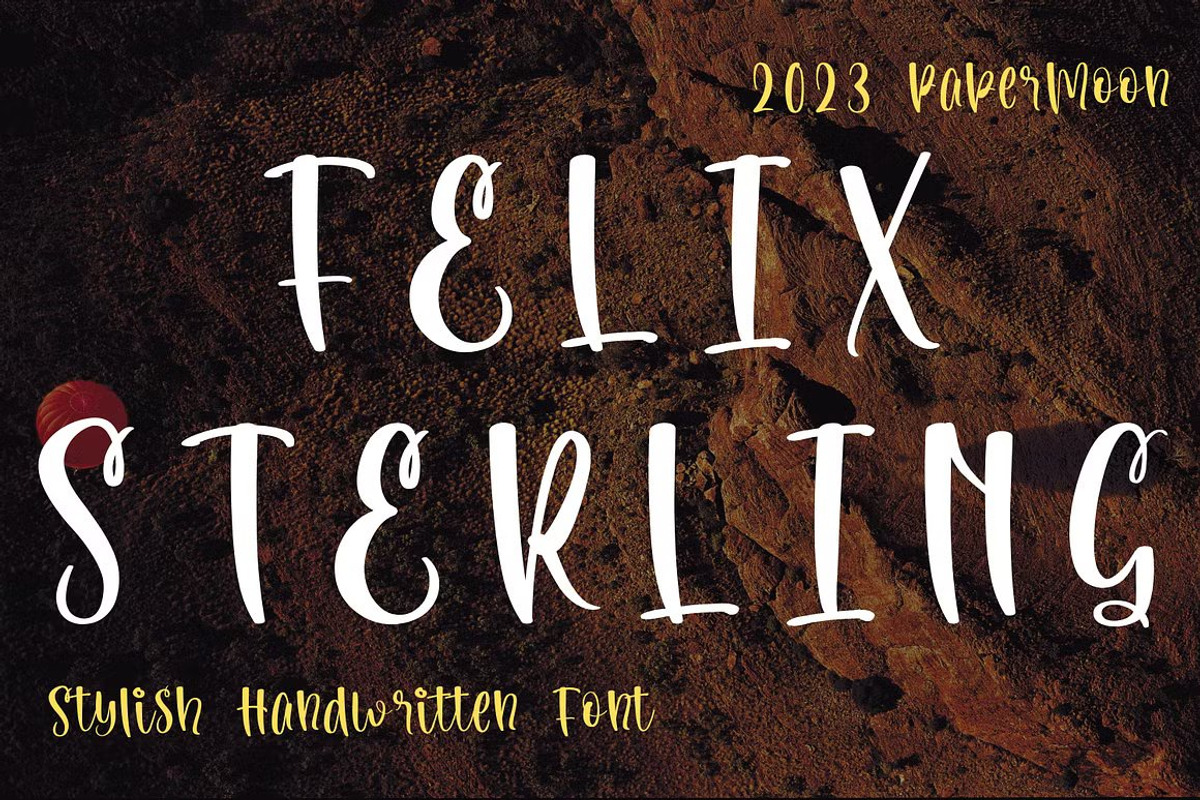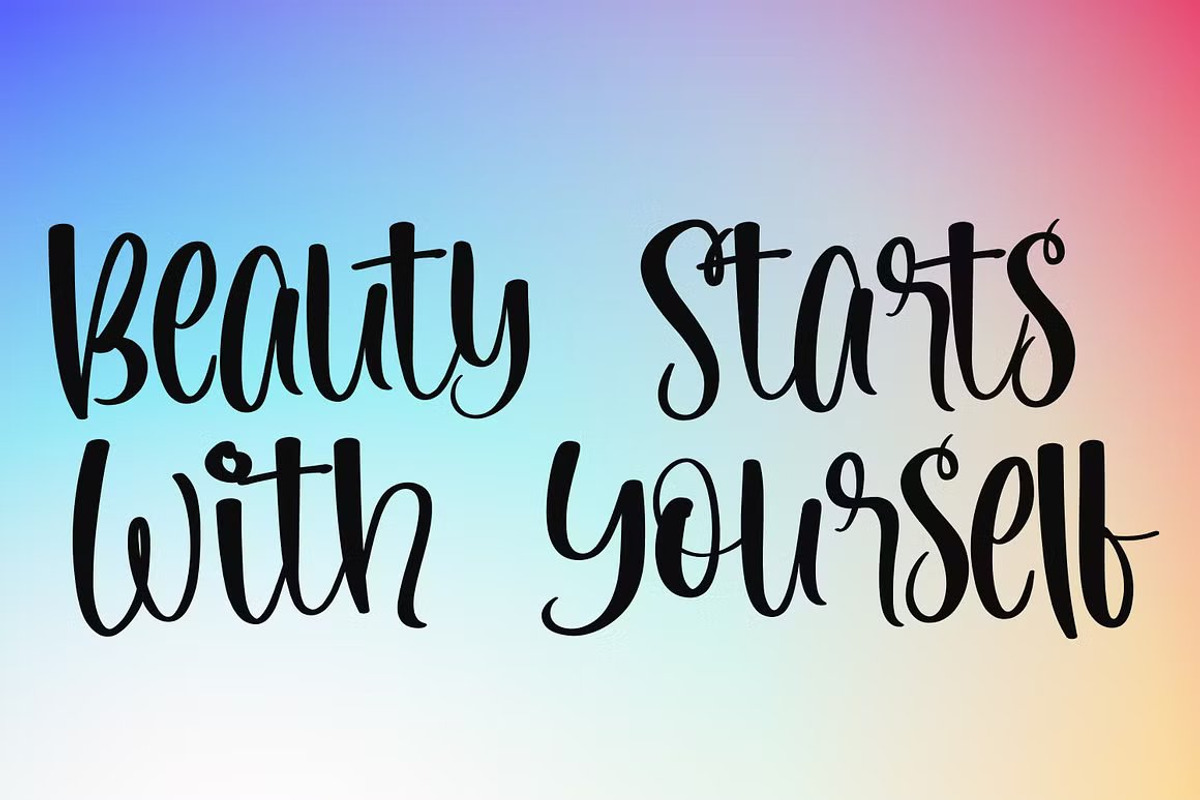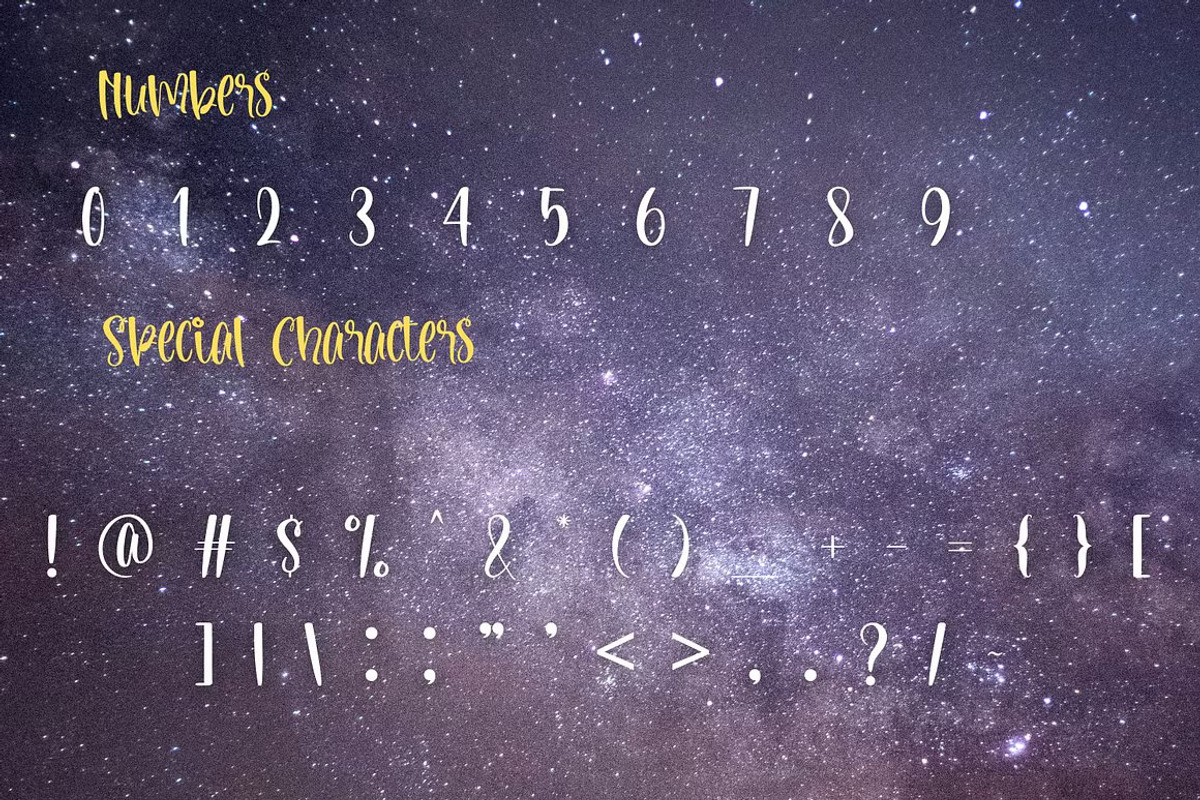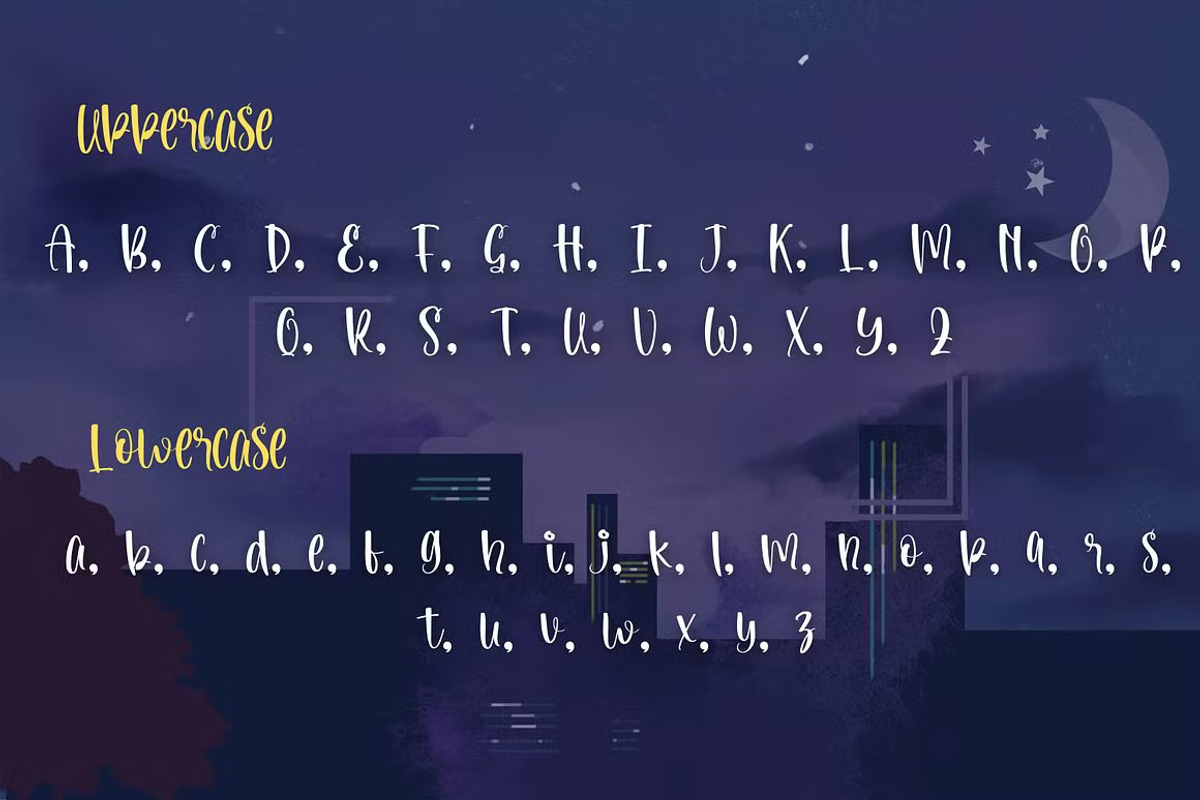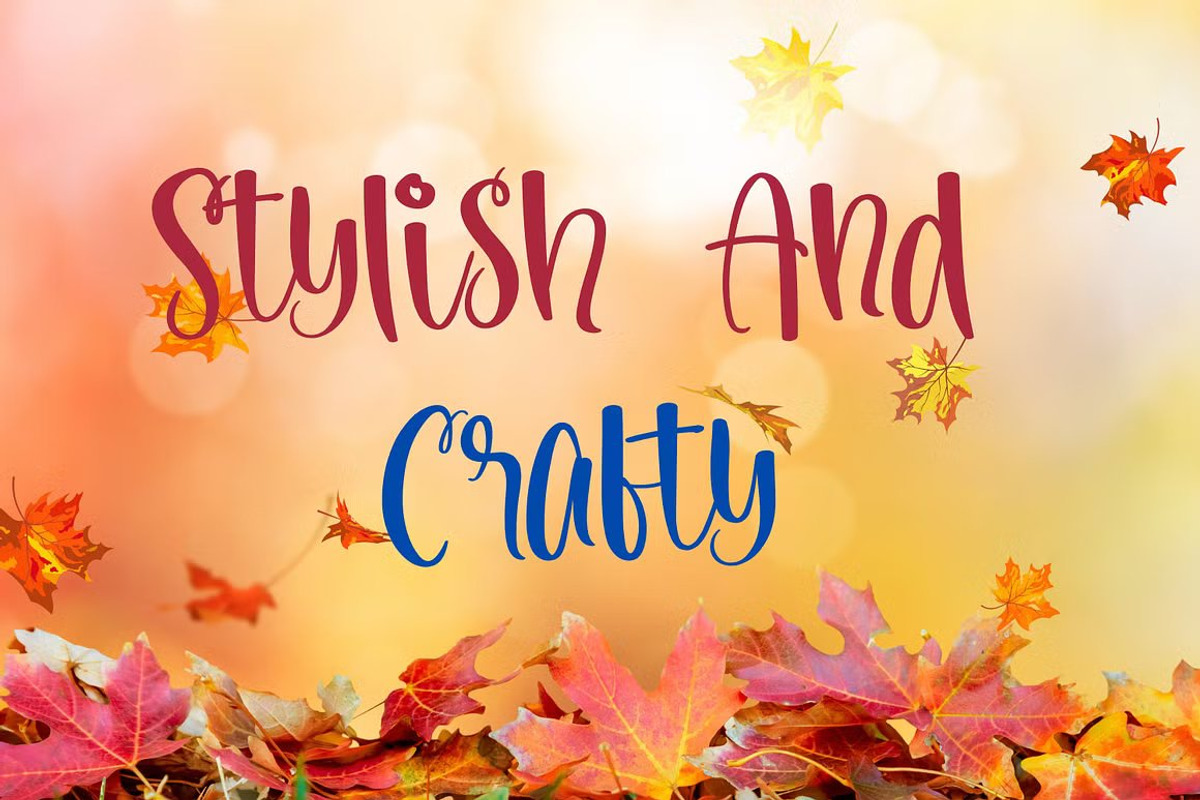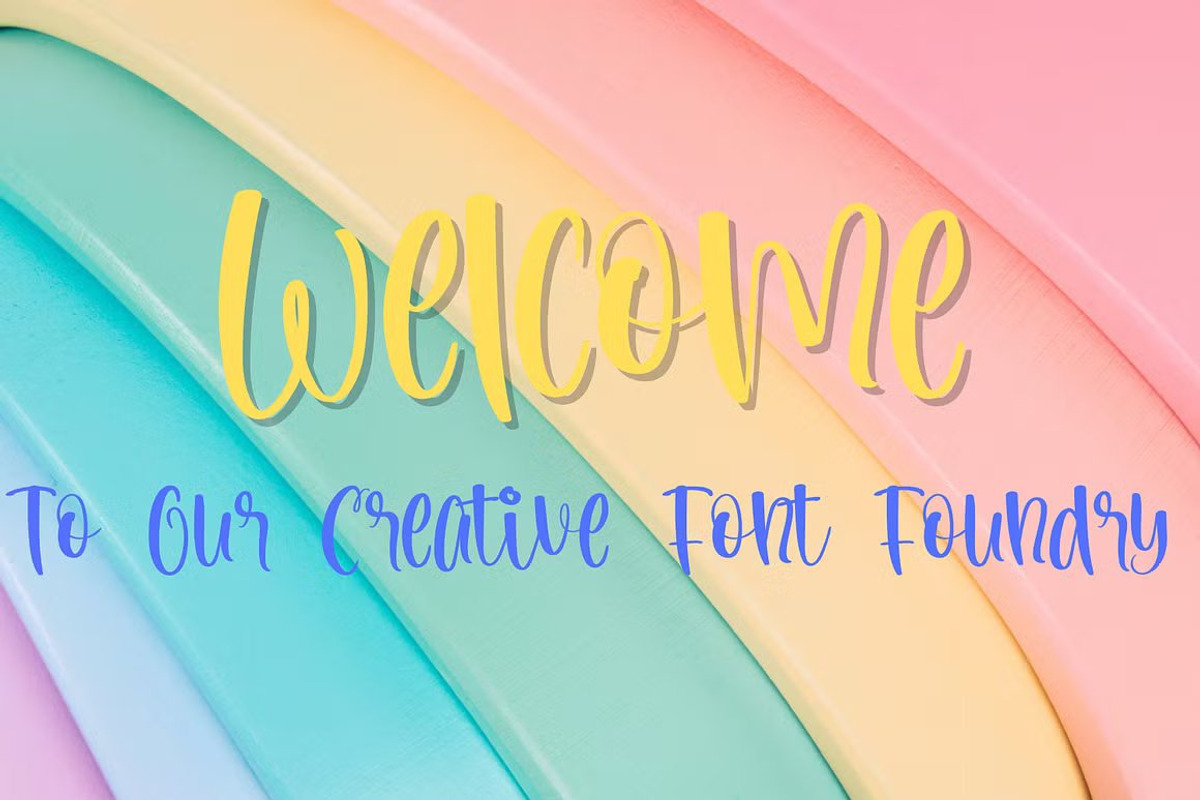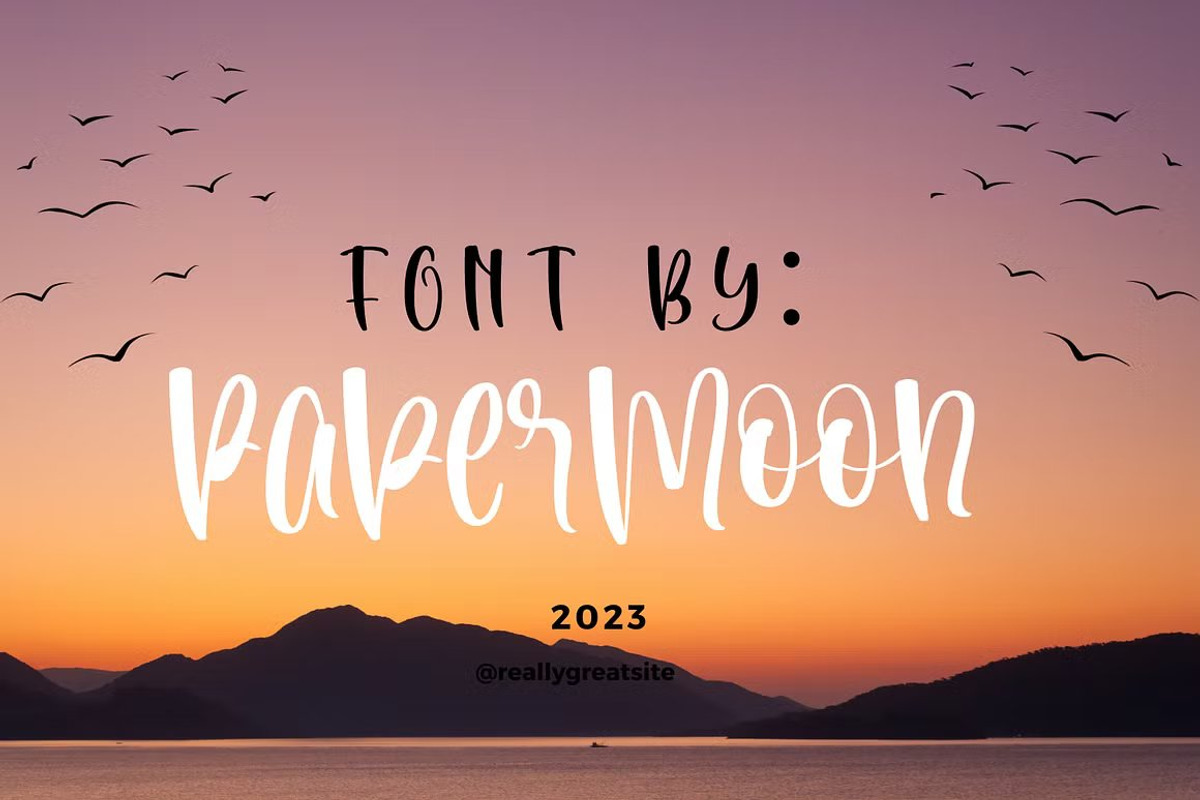
Felix Sterling: Stylish Handwritten
Introducing Felix Sterling Font: A Stylish Handwritten Typeface with a Unique Spark Effect
Designed by Cherish Adonis, this elegant handwritten font features a captivating spark effect, adding a touch of sophistication and flair to your creative projects. This versatile typeface is perfectly suited for industries like accessories, architecture, fashion, crafts, floristry, homeware, jewelry, perfumes, publishing, wedding planning, and more—bringing a stylish and creative touch to every design.
Felix Sterling Font comes with:
Complete Uppercase and Lowercase Characters for maximum versatility Numbers and an extensive range of punctuation marks and symbols Ligatures and swoosh elements to enhance your designs with extra charm and movement Crafted with precision, each character is meticulously spaced and kerned, ensuring a polished and cohesive look. With an extended license, this font is ideal for various projects, including blog headers, invitations, labels, magazines, product packaging, stationery, titles, and more.